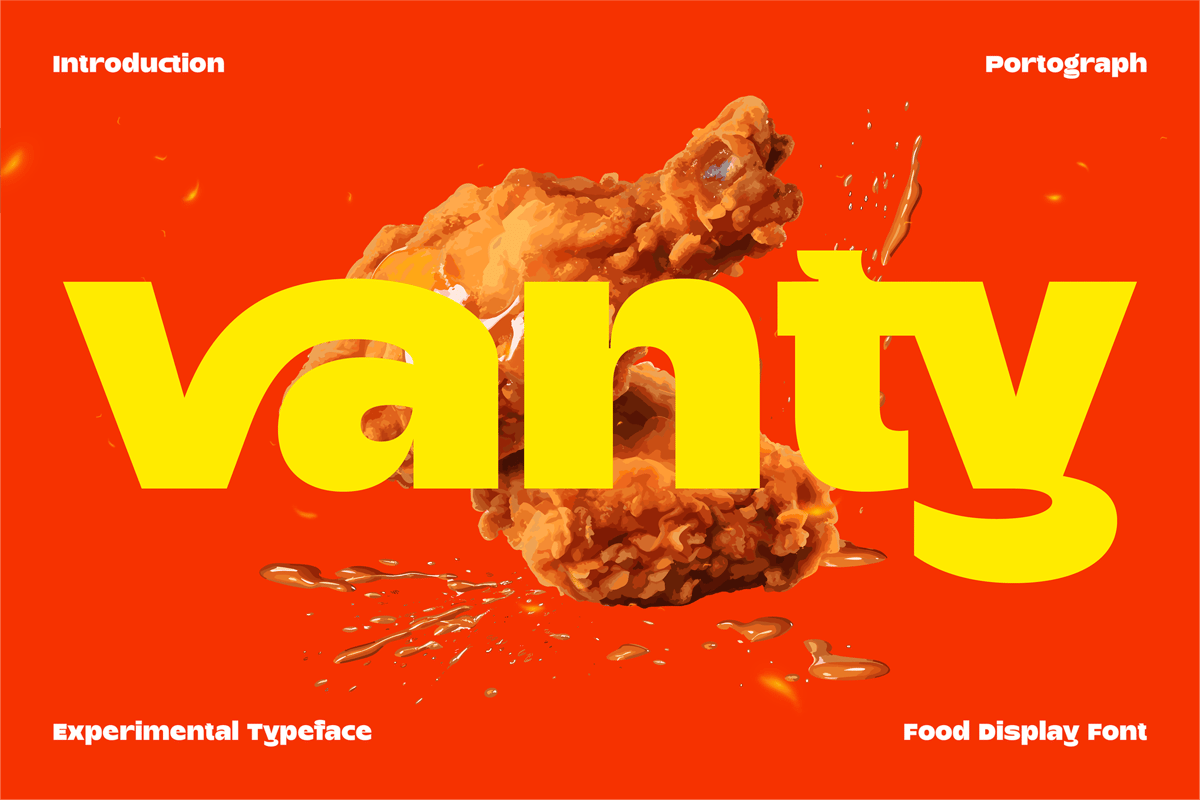
Vanty – Food Font
Bring bold flavor and instant appetite appeal to your food designs with this chunky, energetic display typeface. Vanty is a playful display font crafted specifically for food-related projects that need to pack a visual punch. Its chunky letterforms, rounded curves, and confident weight create a fun, energetic personality that makes viewers hungry at first glance. This typeface excels in food branding applications where you need that perfect balance of friendly approachability and powerful impact...